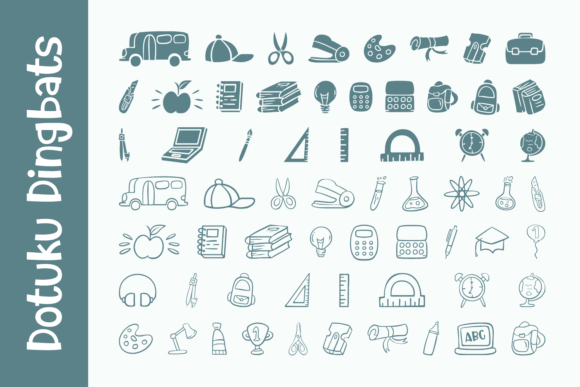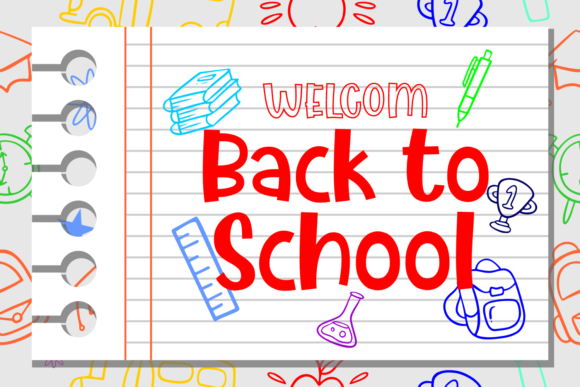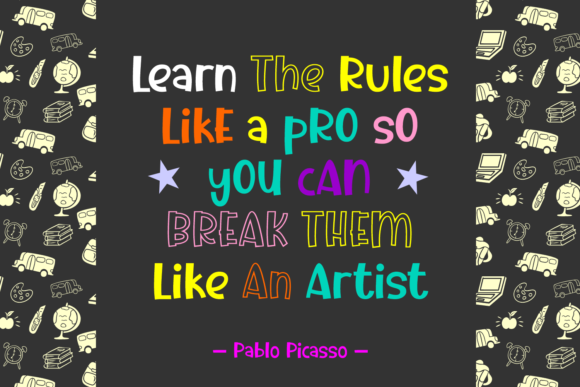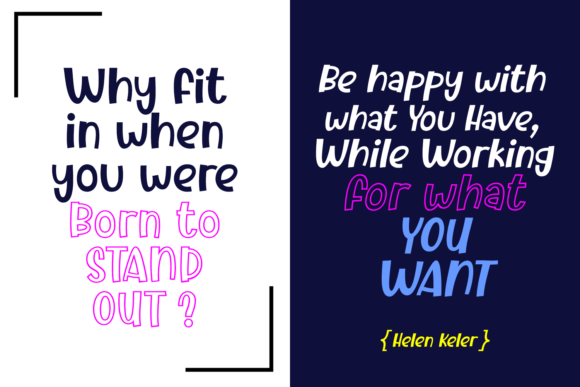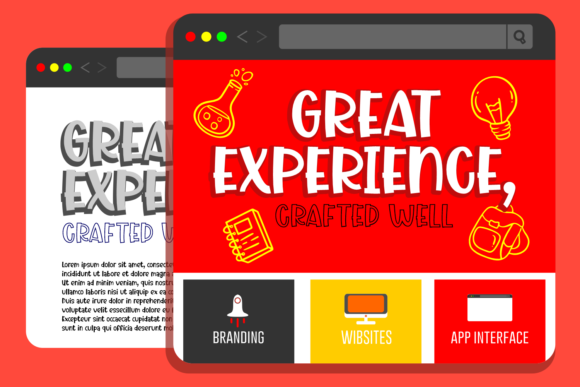
Introduction to Dotuku Font
Dotuku is inspired by classic typography and brings its own unique style to any design project.
This fantastic scrpit font is best suited for headlines of all sizes, as well as for blocks of text that have both maximum and minimum variations Whether itโs for web, print, moving images or anything else โ Dotuku will look spectacular.
Dotuku Font offers exceptional quality and versatility, making it a valuable addition to your design toolkit. Whether you’re creating for personal projects or commercial use, Dotuku Font delivers professional results.